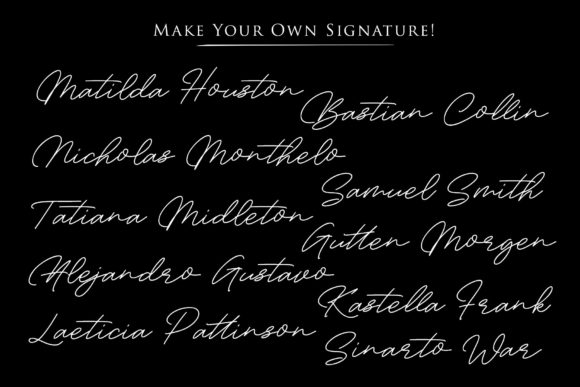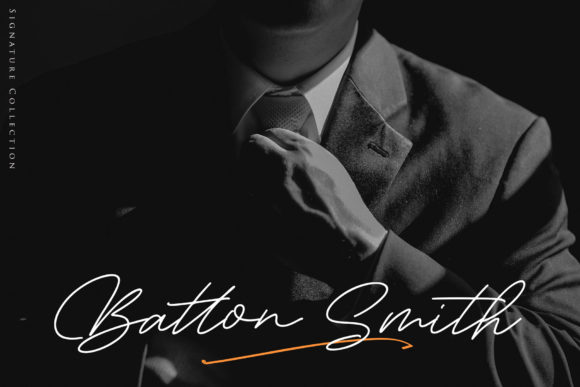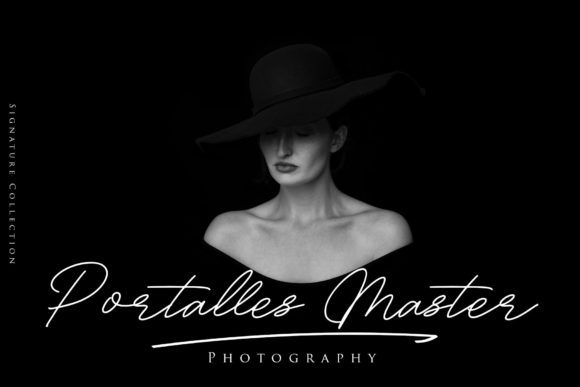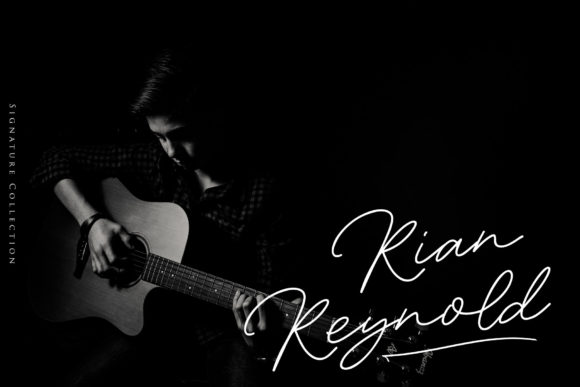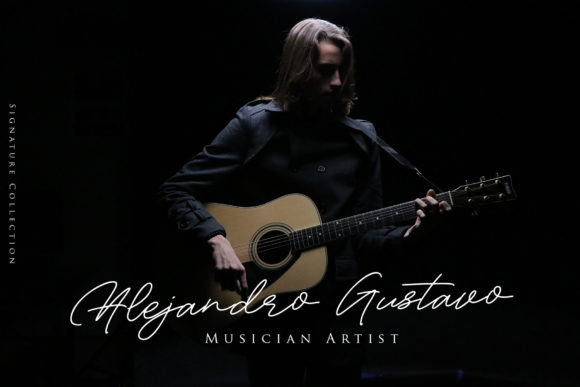
Bambang Signature Font: Elevate Your Crafting Projects with Elegance
In the world of crafting and design, the right font can make all the difference. It can add a touch of personality, convey emotion, and elevate your project from ordinary to extraordinary. If you’re looking for a font that exudes elegance and class, look no further than Bambang Signature Font. This beautiful, handwritten script font is designed to add a romantic touch to any crafting project, making it perfect for designers and crafters alike.
What is Bambang Signature Font?
Bambang Signature Font is an elegant and classy handwritten script font that is sure to impress. With its flowing lines and delicate curves, this font is perfect for adding a touch of sophistication to any project. Whether you’re working on a wedding invitation, a scrapbooking project, or a DIY craft, Bambang Signature Font is the perfect choice.
Key Features of Bambang Signature Font
- Elegant and Classy Design: Bambang Signature Font features a beautiful, handwritten script design that is both elegant and classy.
- Romantic Touch: This font is perfect for adding a romantic touch to any project, making it ideal for wedding invitations, anniversaries, and other special occasions.
- Versatile: Bambang Signature Font can be used for a wide range of crafting projects, including scrapbooking, DIY crafts, and more.
- Easy to Read: Despite its elegant design, Bambang Signature Font is easy to read, making it perfect for both digital and print projects.
Tips for Using Bambang Signature Font
- Pair with Other Fonts: Bambang Signature Font pairs well with other fonts, such as sans-serif fonts or serif fonts. Experiment with different combinations to find the perfect look for your project.
- Use for Headings and Titles: Bambang Signature Font is perfect for headings and titles, adding a touch of elegance and sophistication to your project.
- Experiment with Colors: Bambang Signature Font looks great in a variety of colors, from soft pastels to rich jewel tones. Experiment with different colors to find the perfect look for your project.
Benefits of Using Bambang Signature Font
- Adds a Touch of Elegance: Bambang Signature Font adds a touch of elegance and sophistication to any project, making it perfect for special occasions.
- Versatile: This font can be used for a wide range of crafting projects, making it a great addition to any designer’s toolkit.
- Easy to Read: Bambang Signature Font is easy to read, making it perfect for both digital and print projects.
Bambang Signature Font is a beautiful, elegant, and classy handwritten script font that is perfect for adding a romantic touch to any crafting project. With its flowing lines and delicate curves, this font is sure to impress. Whether you’re a designer or crafter, Bambang Signature Font is a great addition to your toolkit. So why wait? Download Bambang Signature Font today and start creating beautiful, elegant projects that will leave a lasting impression.